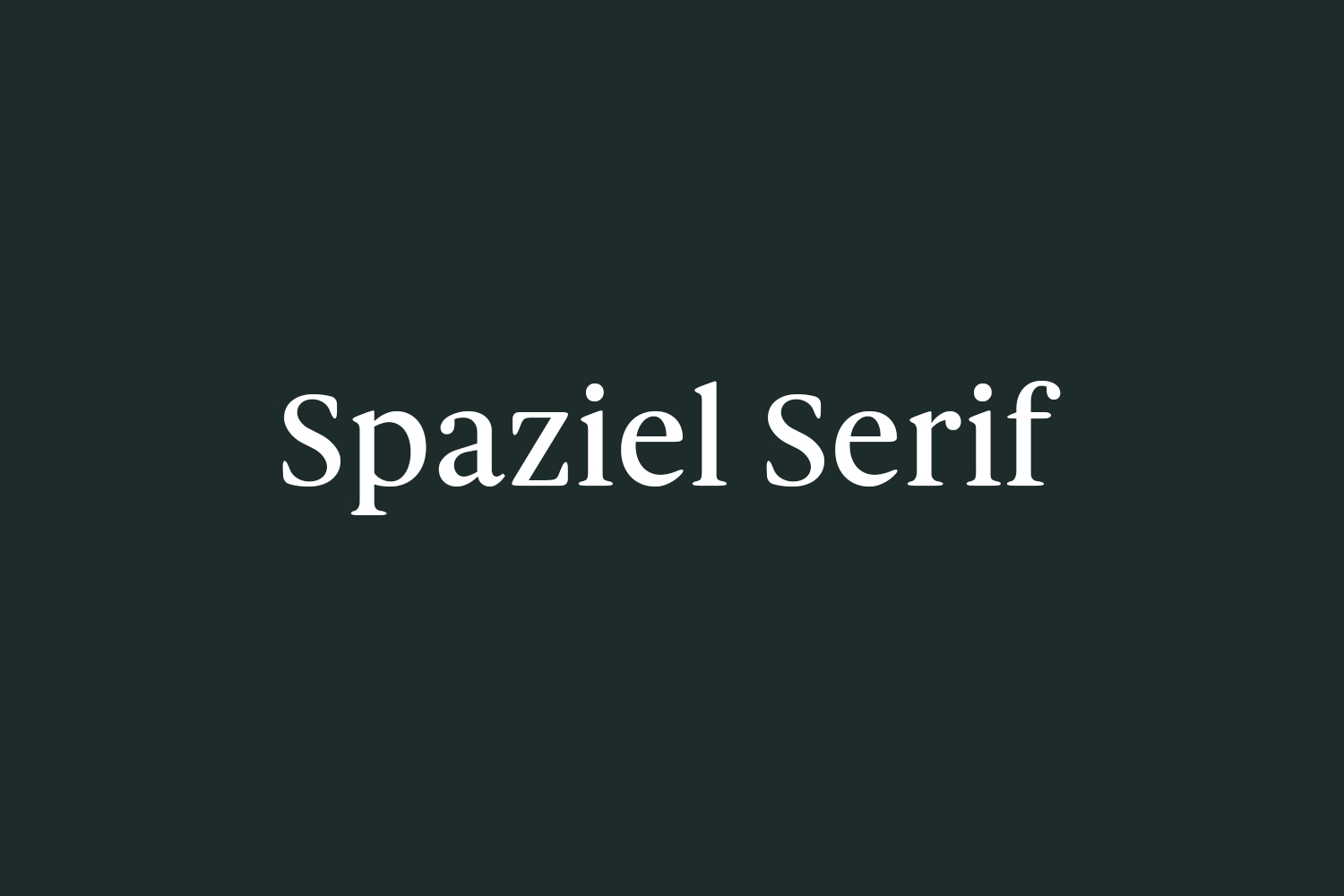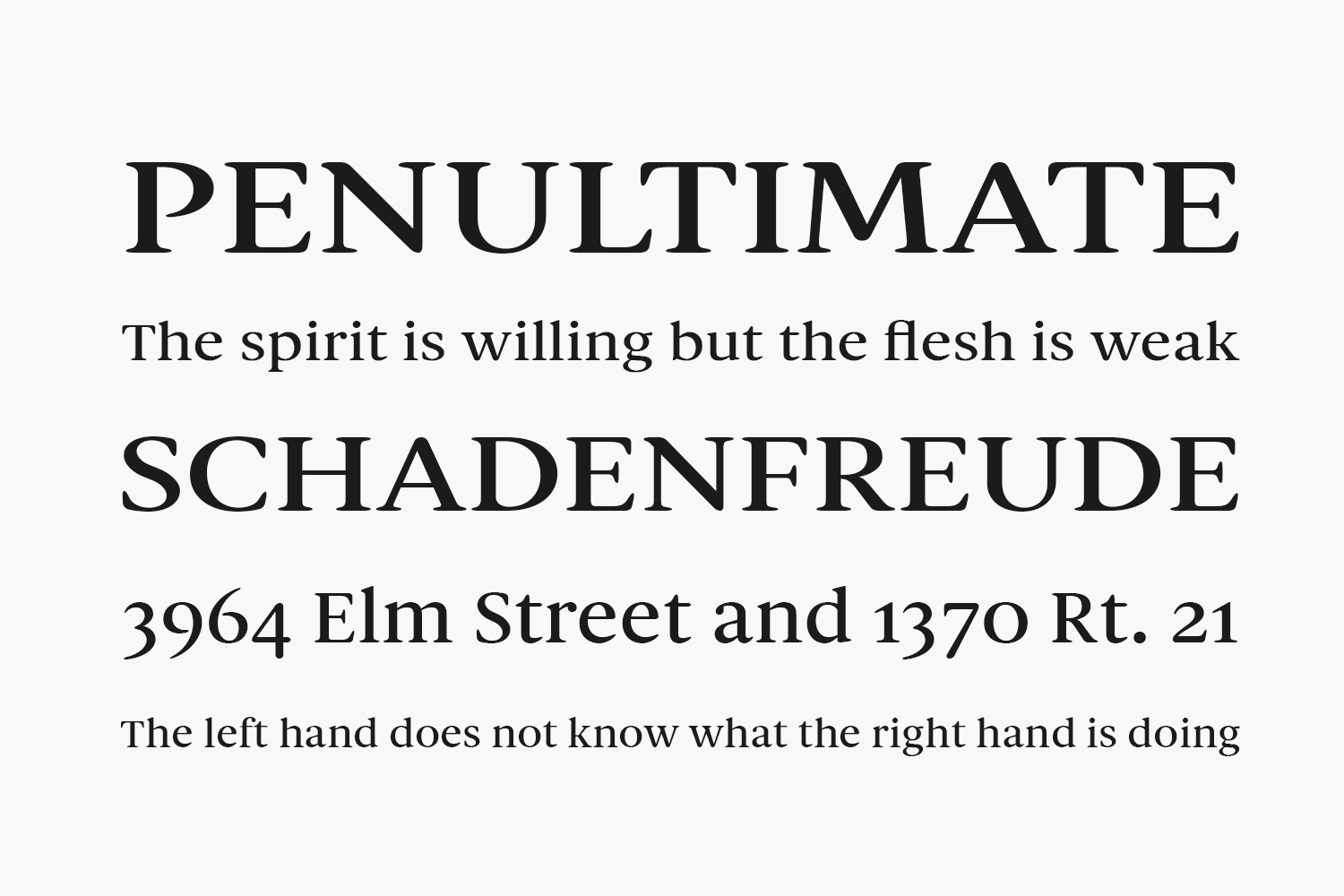
Spaziel Serif Free Font is a clean and authentic serif font. Add it confidently to your favorite creations and let yourself be amazed by the outcome generated. Spaziel Serif Free Font was designed by Maulana Creative and is free for personal use only. Please purchase the full version for commercial use.
Designed by Maulana Creative